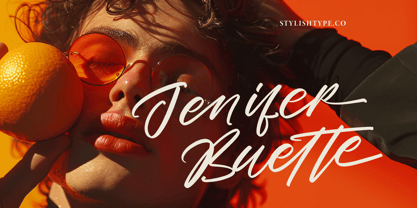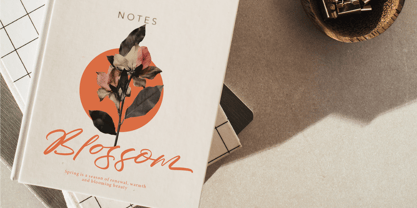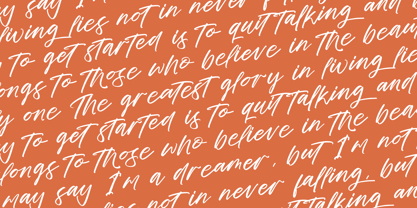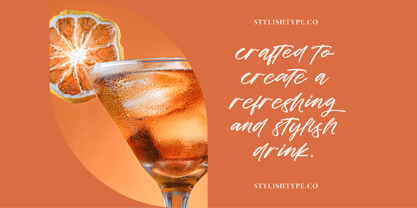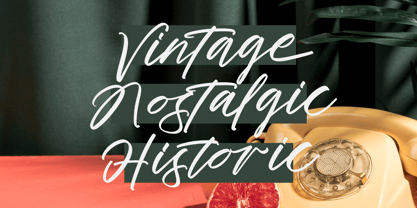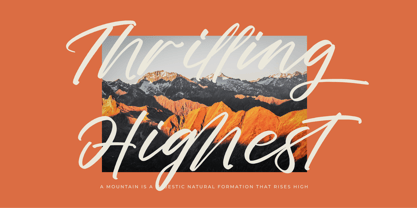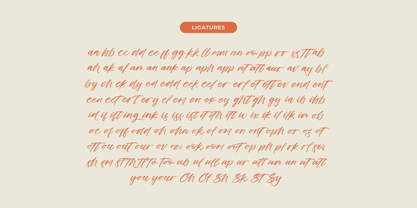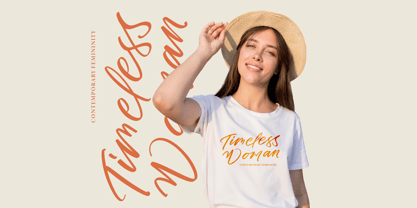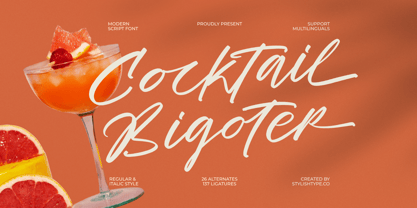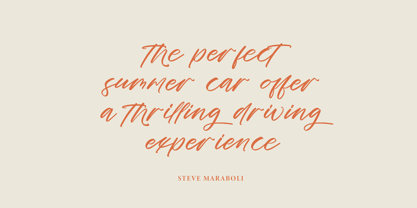
Cocktail Bigoter
by Stylishtype Studio
The Cocktail Bigoter Font Family was designed by Heru Utama Putra and published by Stylishtype Studio. Cocktail Bigoter contains 2 styles and family package options. More about this family
Cocktail Bigoter - Modern Script Font , from Stylishtype , Suitable for any projects such as: logos, branding projects, homeware designs, product packaging, mugs, quotes, posters, shopping bags, t-shirts, book covers, name card, invitation cards, greeting cards, label, photography, watermark, special events, and all your other luxury and beautiful projects that need a Luxury Script taste.